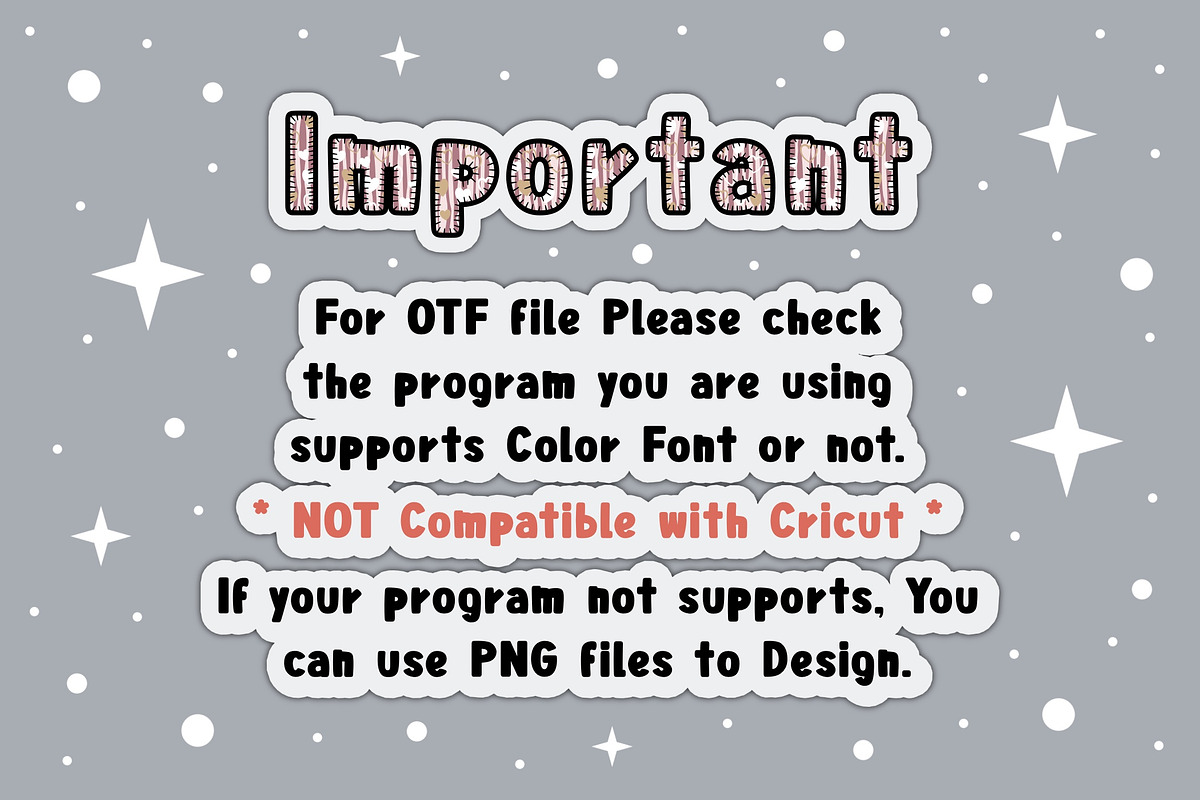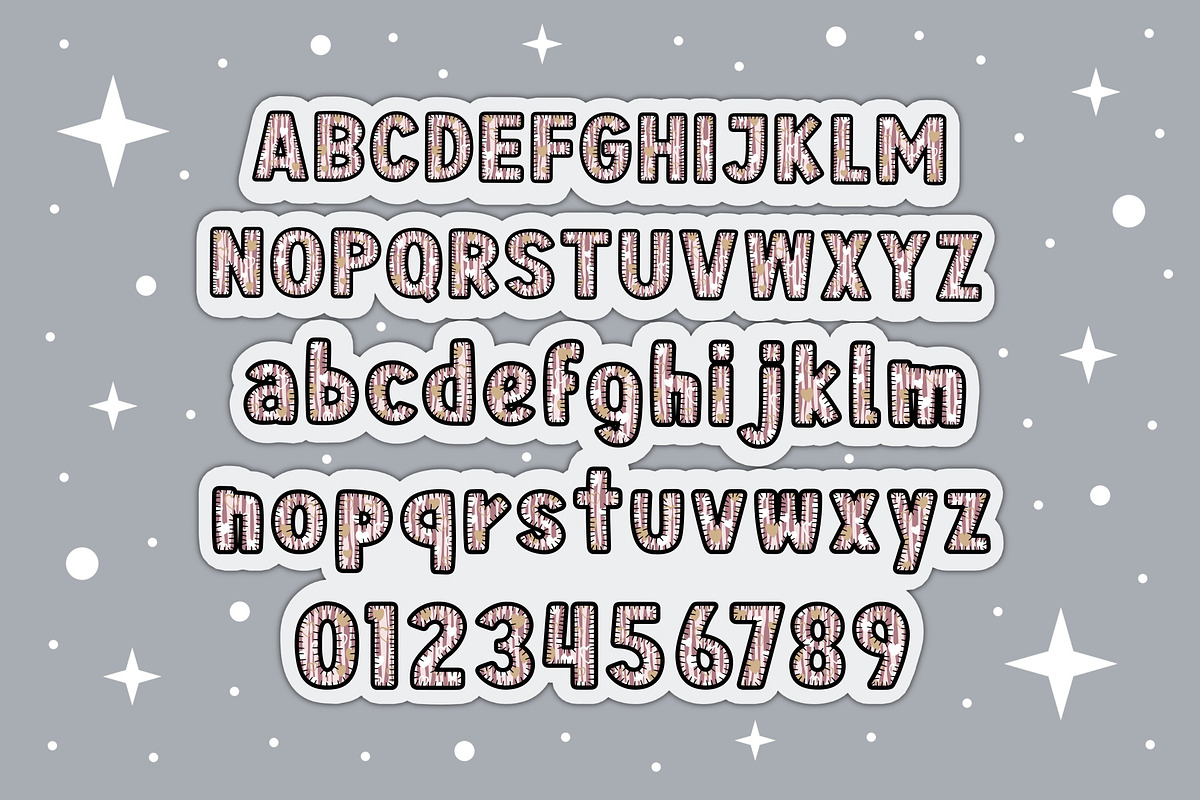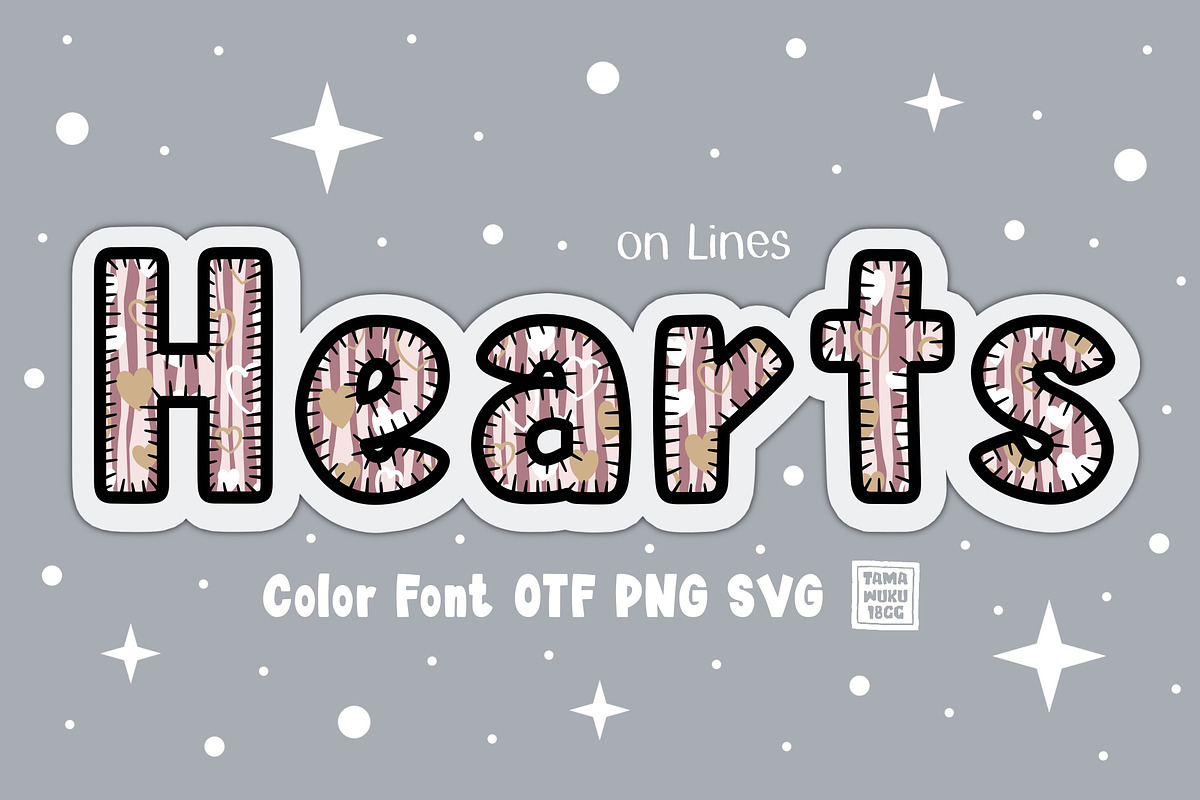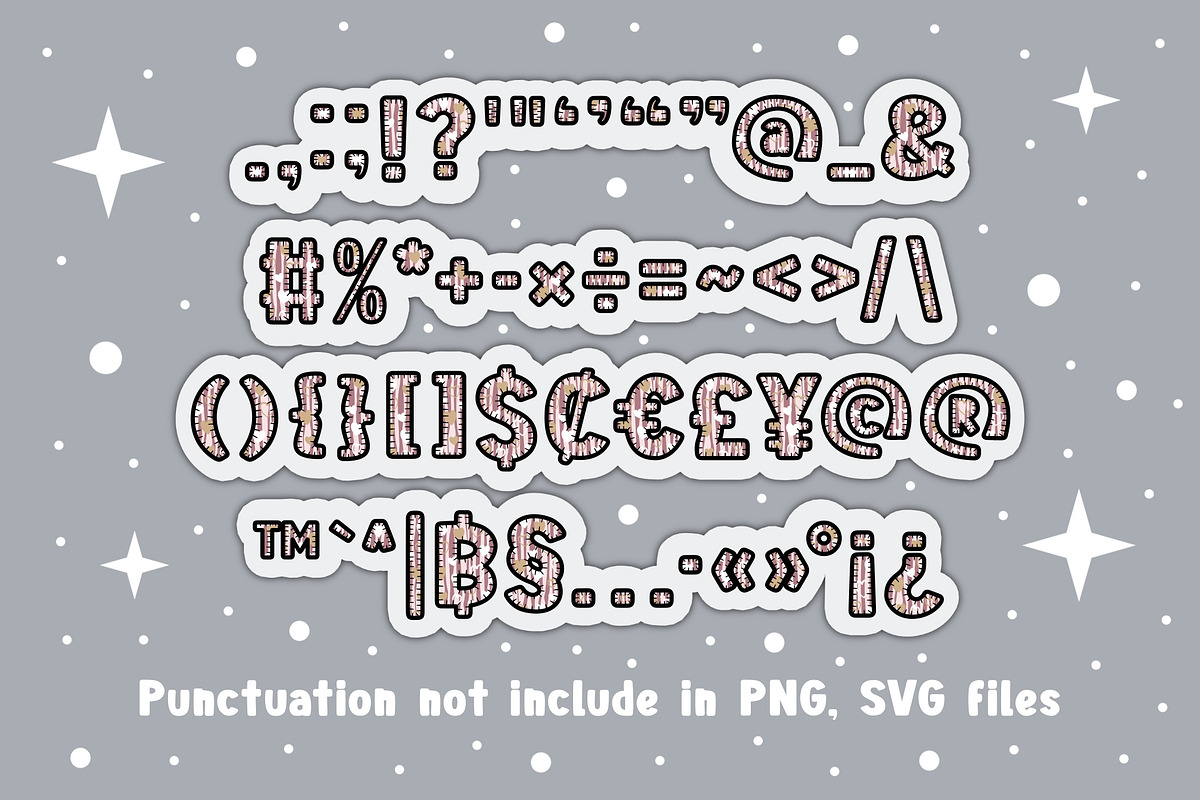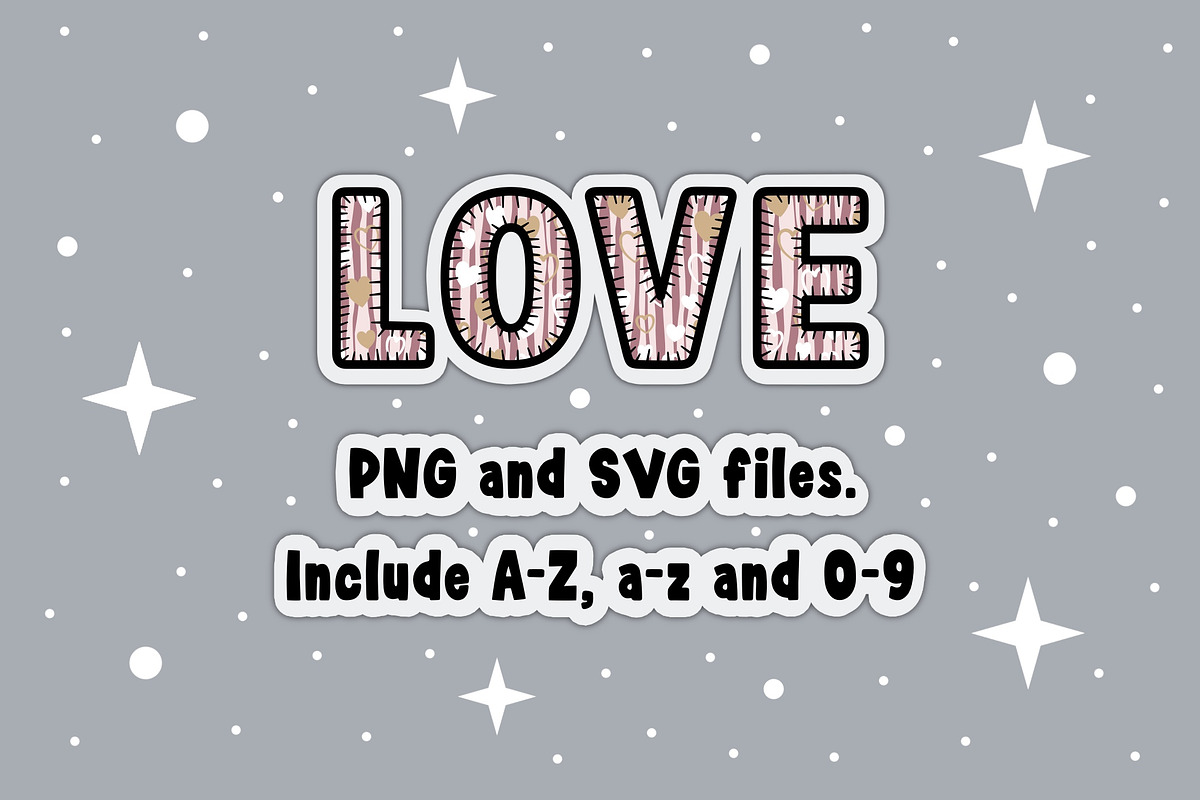
Hearts on Lines OTF PNG SVG
Hearts on Lines is a Cute Colors Pattern Font in Valentine Theme. This font is the perfect fit for all of your t-shirt, social media, crafty DIY projects, and much more!